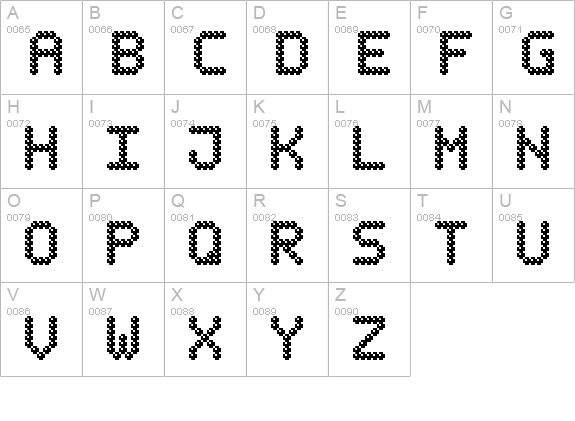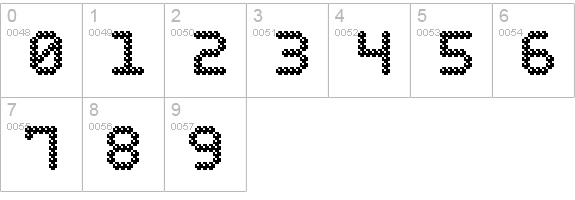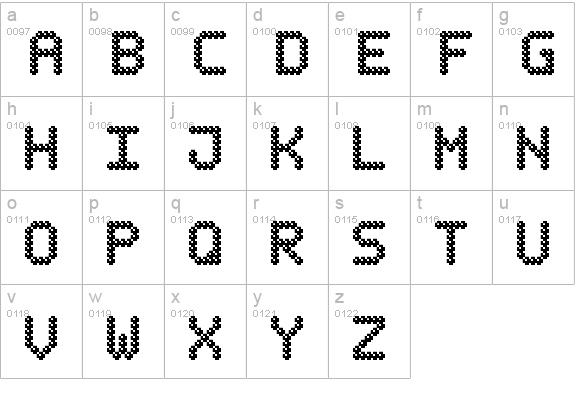
Introducing Bubble Pixel-7 Dark font, a captivating and contemporary typeface that will add a touch of playful charm to any design project. With its unique blend of bubbly curves and pixelated edges, this font is perfect for adding a modern twist to logos, headlines, posters, and more. The Bubble Pixel-7 Dark font offers a wide range of versatility, whether you're looking to create a fun and vibrant design or a sleek and futuristic look. Its bold and eye-catching appearance will instantly grab attention and make your message stand out. What's even better is that Bubble Pixel-7 Dark font is available to download for free at FontsMarket.com. That's right, you can enjoy all the benefits of this fantastic font without spending a dime. It's the perfect solution for students, creatives on a budget, or anyone who simply loves a good freebie. Not only is Bubble Pixel-7 Dark font freely available, but it also comes with a variety of different weights and styles, allowing you to tailor your designs to perfection. Whether you choose the regular weight for a subtle touch or the bold weight for a statement-making impact, this font has got you covered. So why wait? Head over to FontsMarket.com today and unlock the potential of Bubble Pixel-7 Dark font. With its free download, incredible versatility, and captivating design, this font is sure to become a staple in your creative toolbox. Don't miss out on this amazing opportunity to elevate your designs and make a lasting impression.